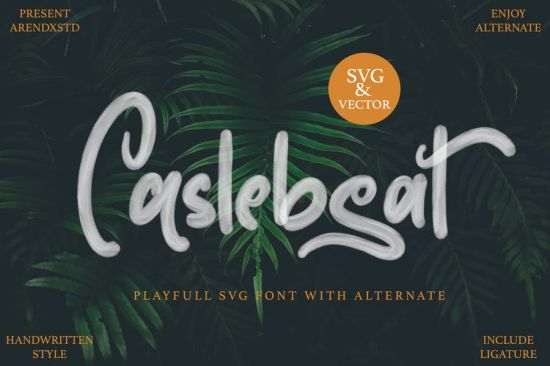
Caslebeat SVG Font is a strong Script SVG font with detailed textures so it looks good to implement in various designs of your project and your design interests be it for logos, branding names, posters, podcasts and so on. This is perfect for you all.